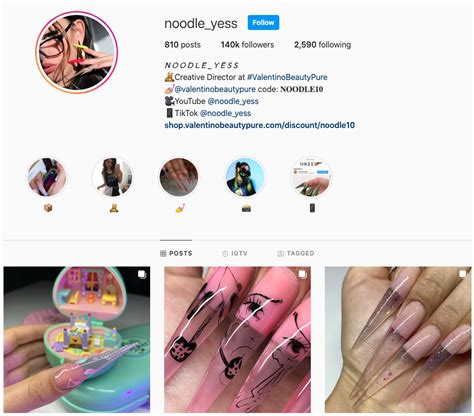
Instagram Fonts on iOS: A Quick Guide
Hey guys! Ever scrolled through Instagram and seen those super cool, stylish fonts on someone’s bio or post captions and wondered, “How do they do that?” Well, you’re in the right place! Today, we’re diving deep into the world of Instagram fonts on iOS . It’s not as complicated as you might think, and with a few simple tricks, you can totally elevate your Instagram game and make your profile pop. We’ll cover everything from how to use the built-in options to some awesome third-party tools that can give you even more creative freedom. So, grab your iPhone, buckle up, and let’s get your text looking trés chic!
Understanding iOS Font Capabilities
First off, let’s chat about what your iPhone can actually do when it comes to fonts. iOS fonts are pretty powerful, but Instagram, for some reason, doesn’t give you a direct font-changing button within the app itself. This means we have to get a little creative. The good news is that iOS has a robust system for handling text, and many apps can tap into this. When you see those fancy fonts on Instagram, they’re usually not actual fonts that Instagram has added . Instead, they’re often special Unicode characters that look like different fonts. Think of it like this: you’re not changing the font itself, but you’re using a character that represents a letter but is styled differently. This is a crucial distinction because it explains why these fonts sometimes behave a little weirdly or don’t show up everywhere. We’ll explore how to harness this Unicode magic in the coming sections. It’s all about finding the right tools to generate these characters and then pasting them where you want them. So, even though the Instagram app might seem limited, your iPhone’s underlying system is actually quite capable of generating and displaying a wide range of text styles. Get ready to unlock some serious textual flair!
How to Change Your Instagram Font Using iOS Features
Alright, so how do we actually do this? The most straightforward way to change your Instagram font on iOS involves using a text generator app or website. These tools are specifically designed to take your plain text and convert it into various Unicode-based styles. Here’s the general process, guys:
1. Find a Font Generator: Search the App Store for “Instagram font generator” or “fancy text generator.” You’ll find tons of free options. Popular ones include Cool Symbol, LingoJam, or IGFonts.net (which you can access via Safari).
2. Type Your Text: Open the app or website and find the input box. Type the text you want to style – this could be your bio, a comment, or text for a Story.
3. Generate Fonts: The generator will instantly show you a list of different font styles. Scroll through and see which ones you like best. You’ll see everything from scripty fonts to bold, italic, and even some more artistic styles.
4. Copy Your Chosen Font: Once you’ve found the perfect style, simply tap the “copy” button next to it. This puts the specially formatted text onto your iPhone’s clipboard.
5. Paste into Instagram: Now, go to the Instagram app. Navigate to where you want to paste the text (e.g., your profile bio, a caption, a comment). Long-press in the text field until the “paste” option appears, and tap it. Voilà! Your text should now appear in the fancy font.
It’s a super simple copy-paste method, and it works for most text fields within Instagram. Remember, these are Unicode characters, so they might not render perfectly on every device or platform, but they generally look great on Instagram. Experiment with different generators to find your favorites!
Using the Built-in iPhone Keyboard (Limited Options)
Now, while the copy-paste method with generators is the most common and effective way to get a wide variety of fonts, you might be wondering if there are any built-in iOS keyboard tricks. Honestly, guys, for Instagram specifically, the built-in options are pretty limited. The standard iPhone keyboard doesn’t offer direct access to fancy Unicode fonts for Instagram. However, there’s a feature called Text Replacements within your iPhone’s settings that can sometimes be used creatively, though it’s not ideal for dynamic font changes.
Here’s how Text Replacements work:
• Go to Settings > General > Keyboard > Text Replacement .
• Tap the + icon to add a new shortcut.
• In the “Phrase” field, paste the fancy text you’ve generated using a font generator (as described above).
• In the “Shortcut” field, type a short, easy-to-remember code (e.g., :)bio ).
Now, whenever you type your shortcut ( :)bio ) in any app, your iPhone will suggest the fancy text phrase to replace it. You’d then select that suggestion. The catch? You have to pre-generate and save each specific fancy phrase you want to use. This is great for a bio that you don’t change often, but it’s not practical for changing fonts on the fly for captions or comments. It’s more of a shortcut for a pre-selected fancy phrase rather than a dynamic font changer. So, while it’s a cool iOS feature, it’s not the primary method for achieving diverse Instagram fonts, but it can save you some copy-pasting time for static text elements like your bio.
As we mentioned, using a dedicated font generator is your golden ticket to unlocking a universe of cool Instagram text styles on your iPhone. These tools do all the heavy lifting, converting your ordinary text into eye-catching Unicode characters that Instagram can display. Let’s dive into some of the most popular and reliable options that work wonders for Instagram font iOS users. These are the guys that will make your profile stand out from the crowd!
IGFonts.net
This is a classic and super-reliable web-based tool. You don’t even need to download an app! Just open Safari on your iPhone and head over to IGFonts.net . The interface is clean and simple: you type your text into a box, and it immediately generates a scrollable list of different font styles below. From elegant scripts to bold sans-serifs and quirky decorative fonts, it’s got a massive library. The best part? It’s incredibly easy to use. You just find the style you like, tap the “copy” button next to it, and then head straight to your Instagram bio or caption field to paste it. IGFonts.net is a go-to for many because it’s always accessible and consistently provides a great selection of fonts. It’s a testament to how simple tools can be incredibly effective.
Final Thoughts on iOS Instagram Fonts
So there you have it, guys! Mastering Instagram fonts on iOS is all about understanding the tools available and using them strategically. We’ve learned that it’s mostly a copy-paste game using Unicode generators, and while the built-in iOS features offer some shortcuts, they aren’t ideal for dynamic font changes. Remember to prioritize readability, maintain consistency, and use those fancy fonts as tasteful accents rather than overwhelming displays of text. By following these tips, you can definitely make your Instagram profile more visually appealing and uniquely you . Go forth and style your text like a pro! Happy posting!